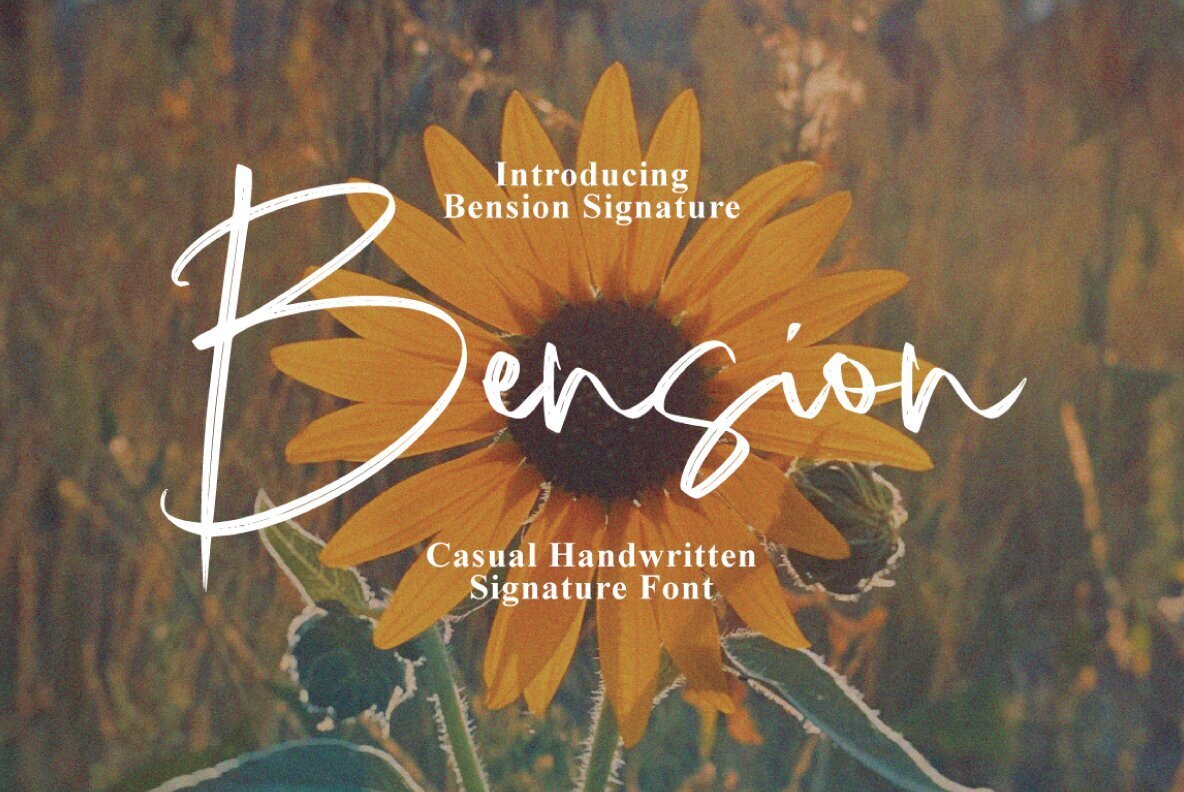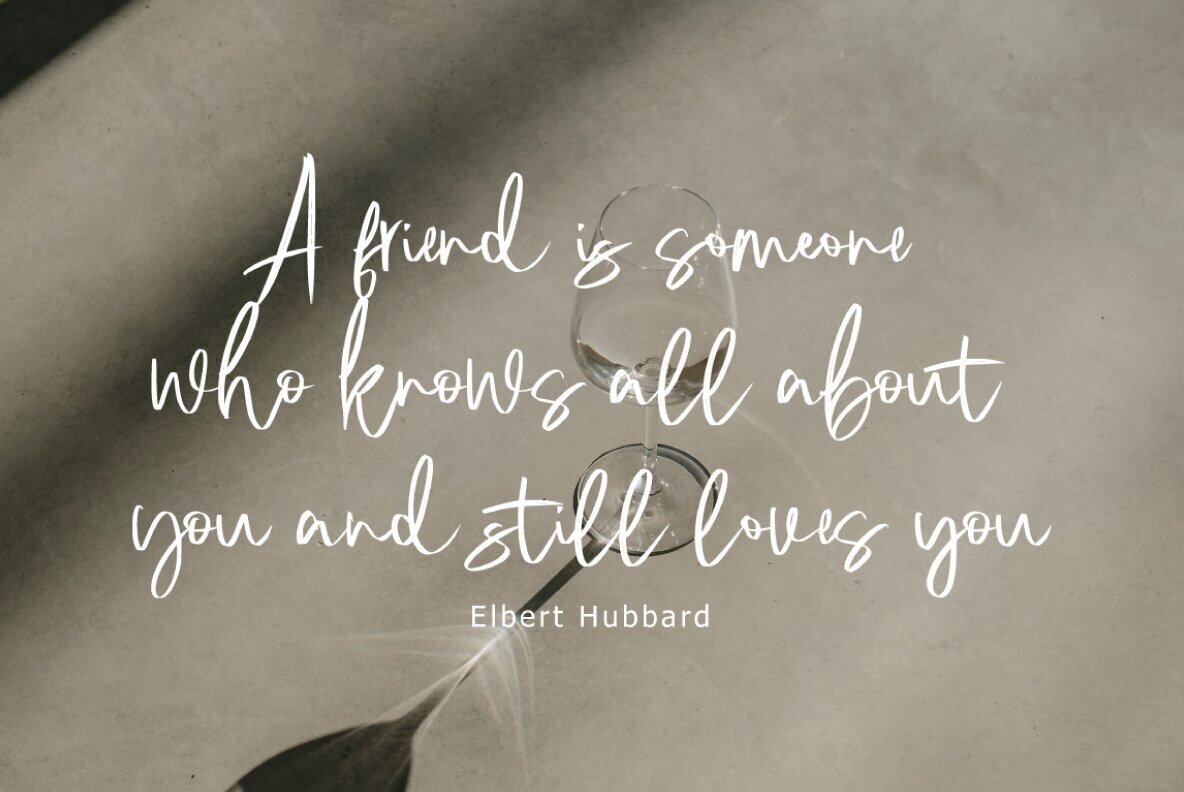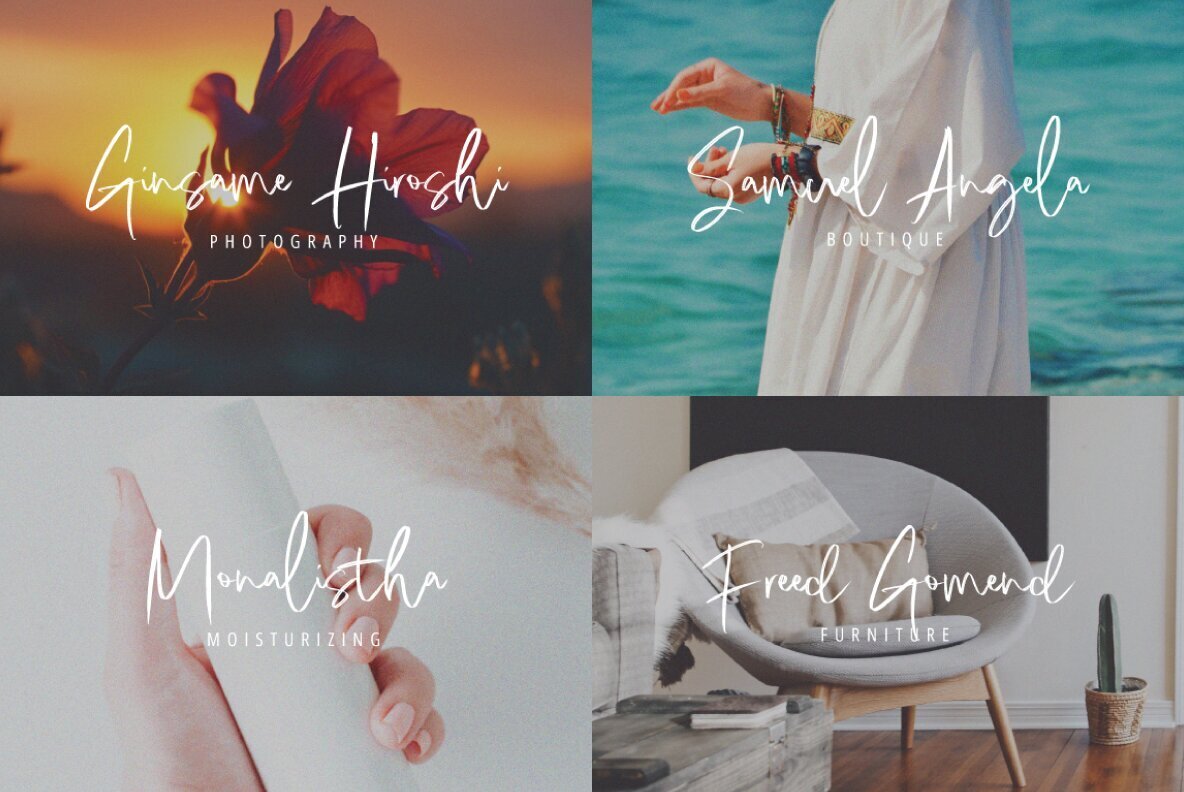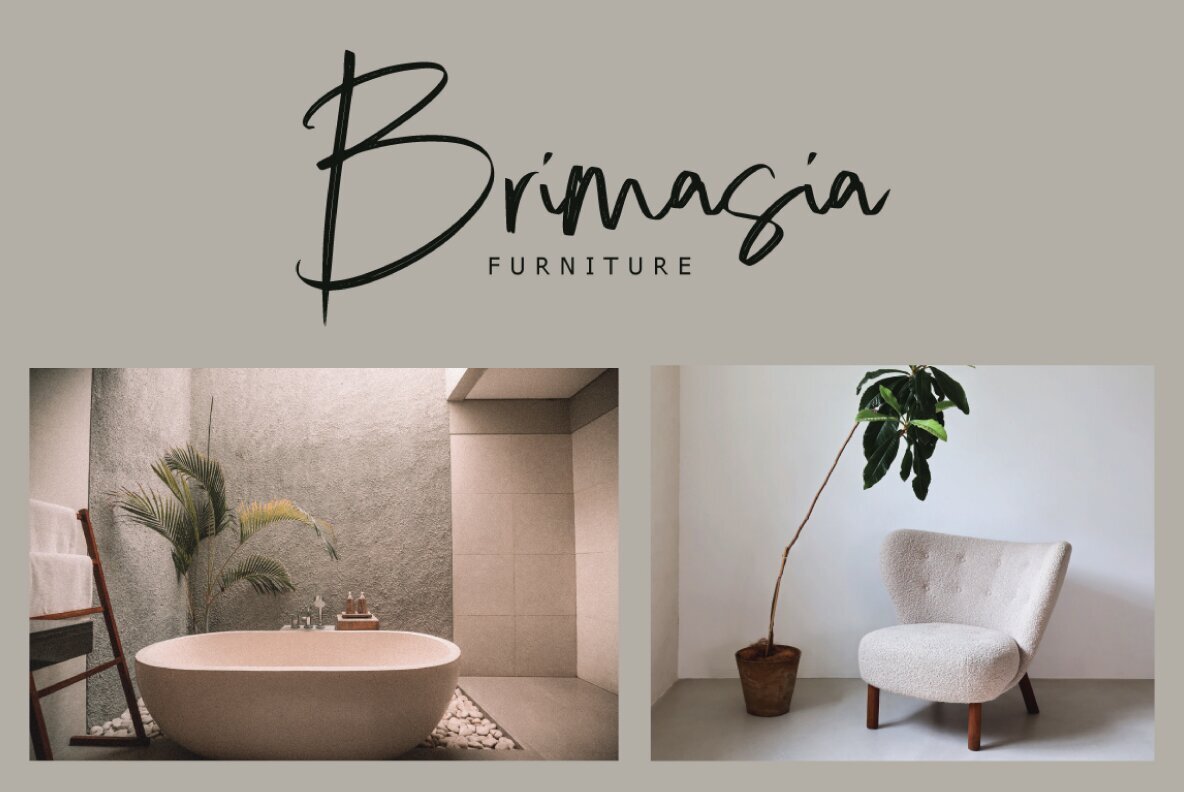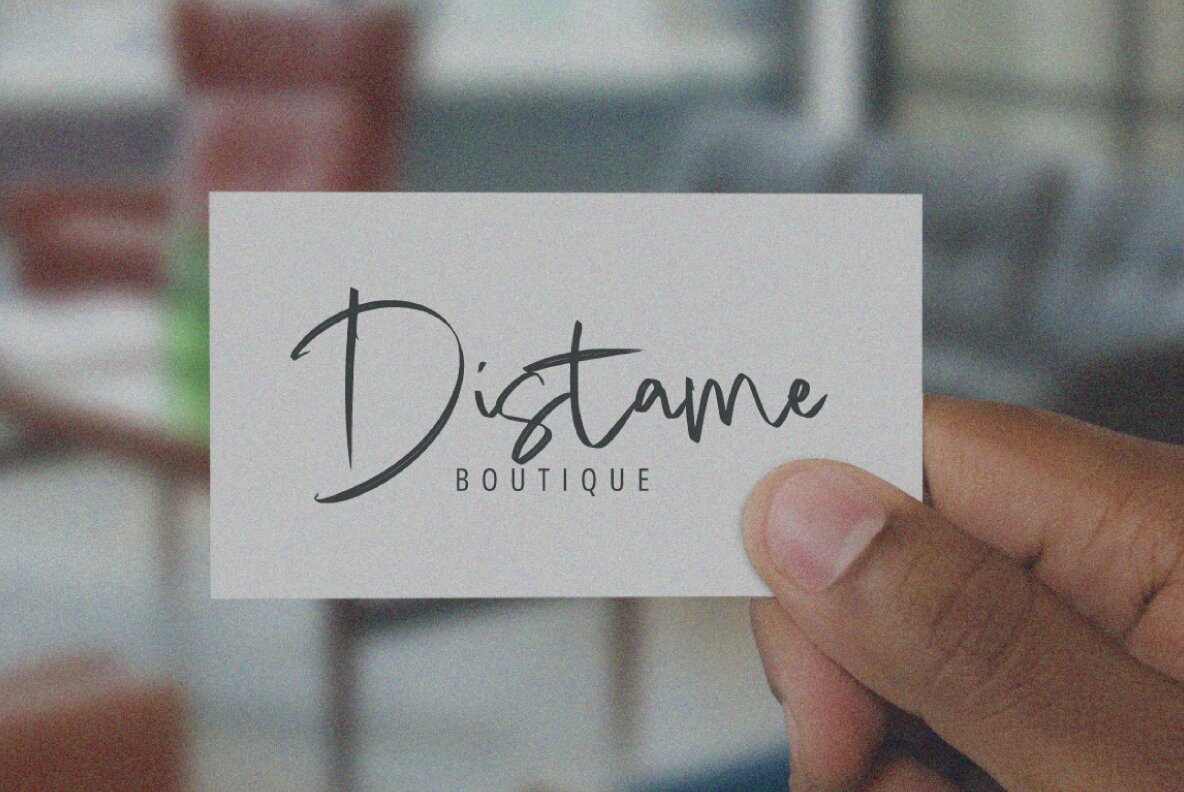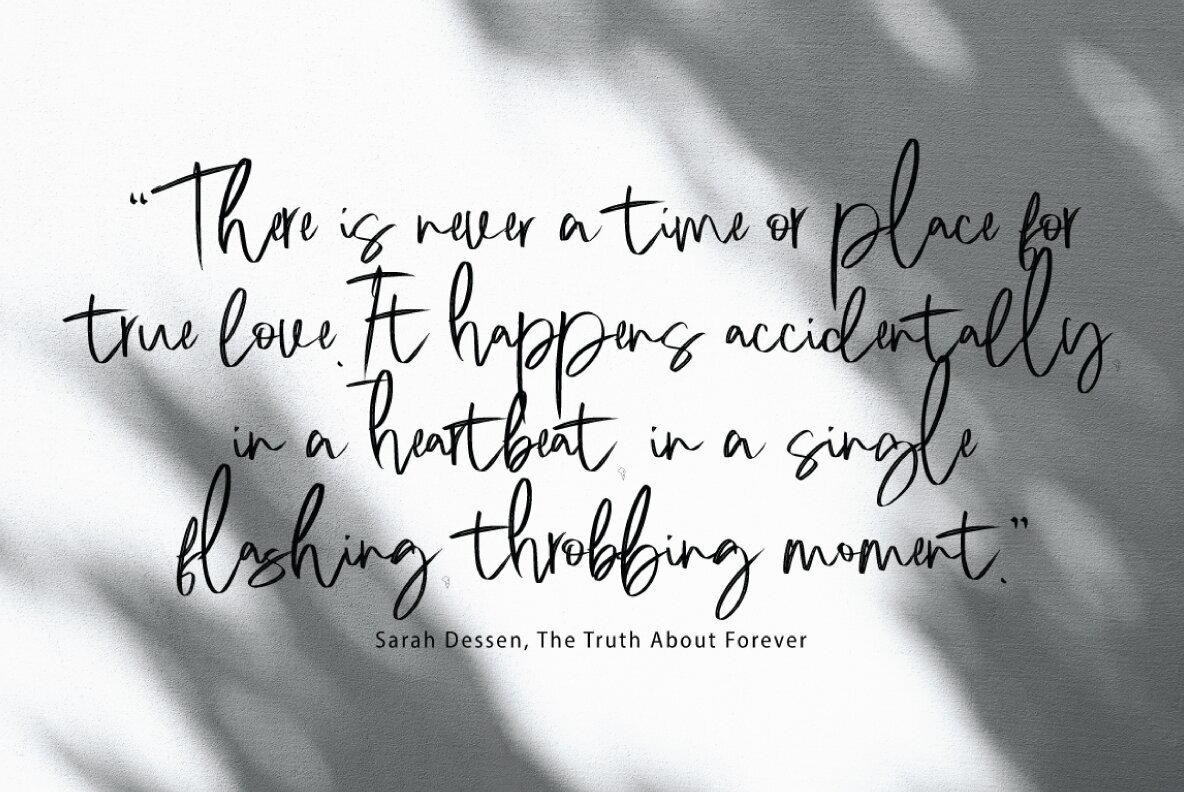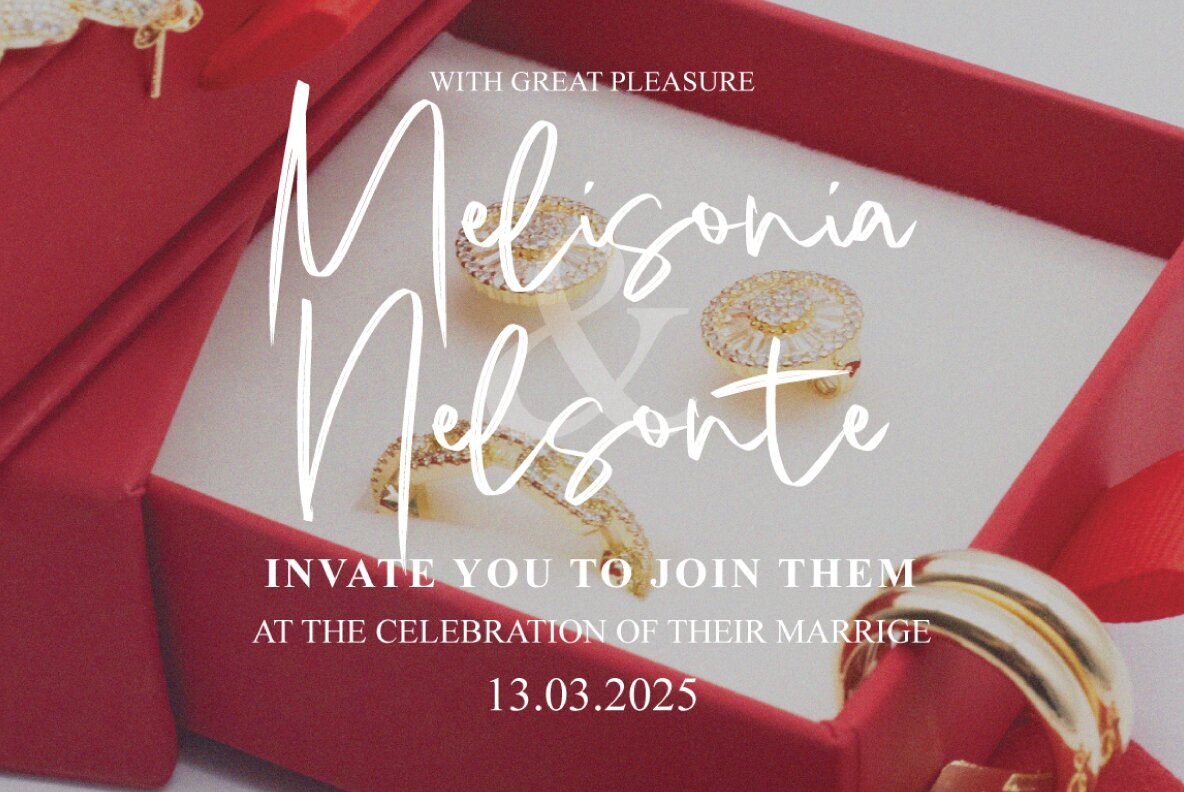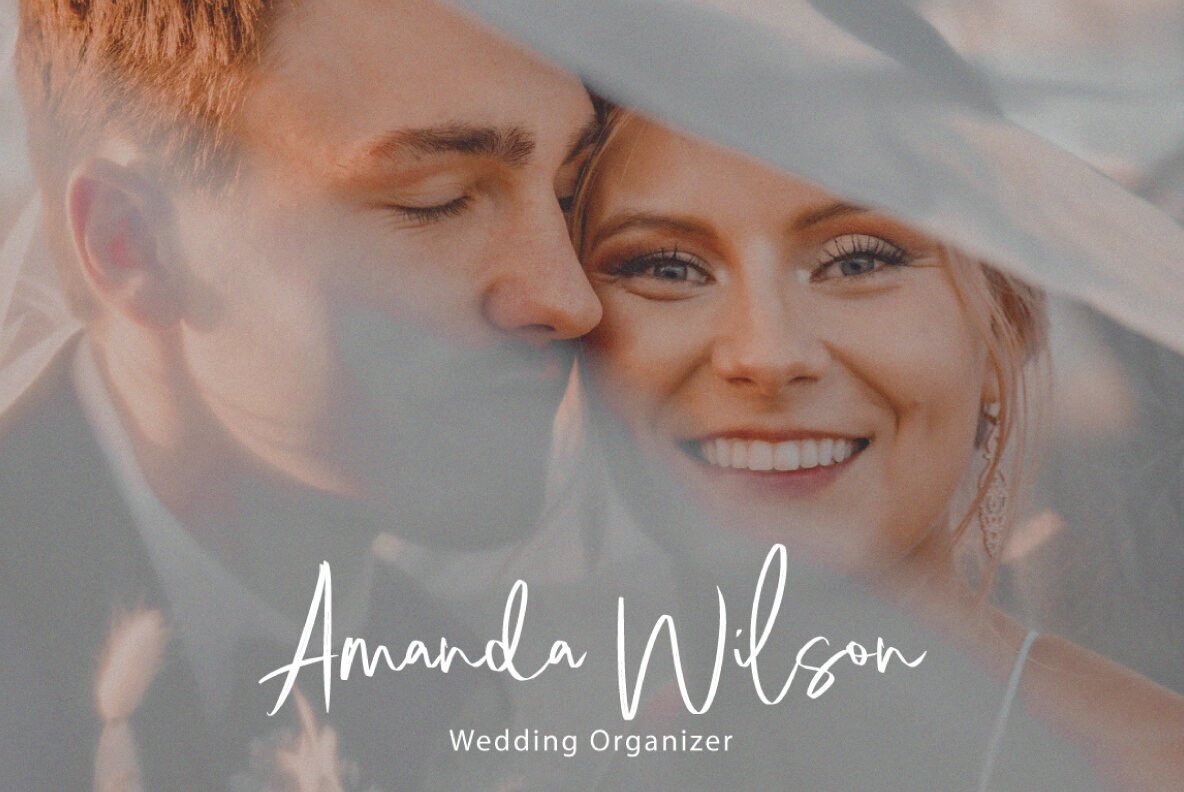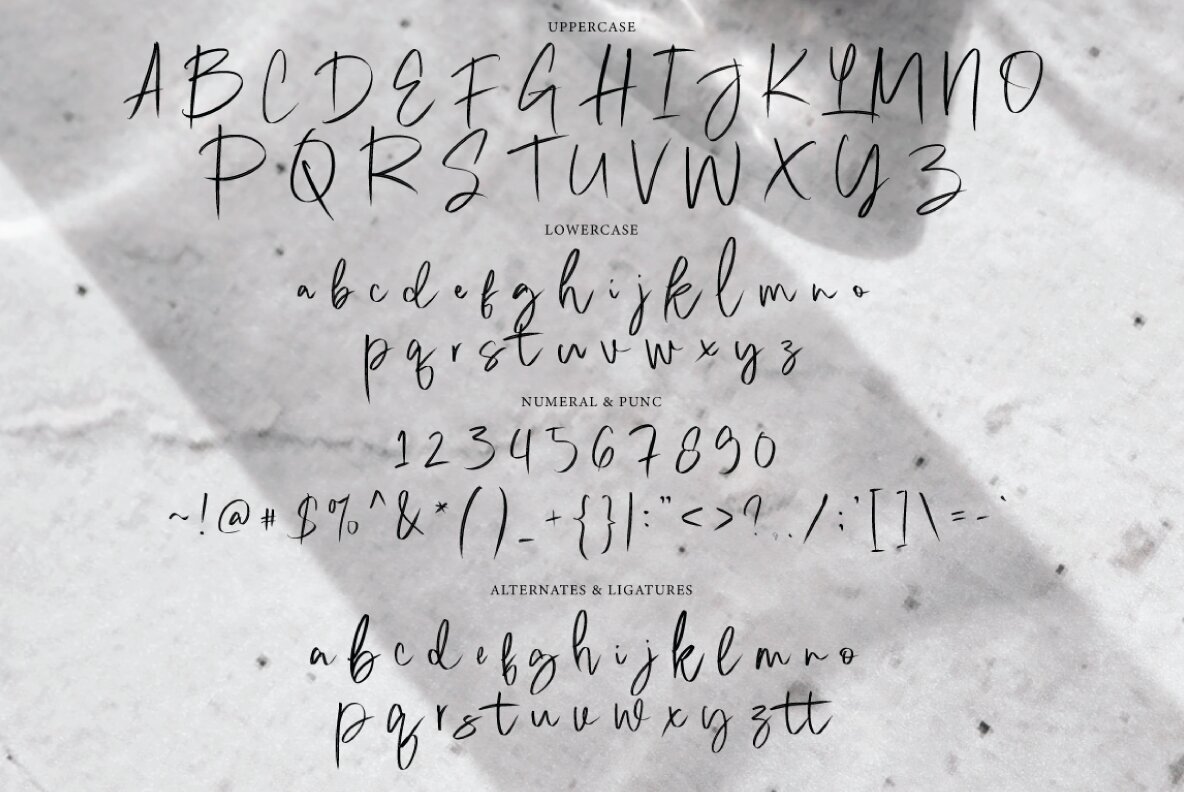
Bension Font
Bension Signature Regular
Discover the exquisite flair of Bension Signature, a remarkable typeface from Executype Studio. Featuring a handmade signature style infused with decorative characters and a dynamic baseline, this font adds charm to any project. Perfect for invitations, greeting cards, branding materials, business cards, quotes, and posters, Bension Signature transforms your designs with over 200 unique glyphs. Bension Signature offers a wealth of OpenType features, including swashes, stylistic sets, alternates, and ligatures. These features are easily accessible with OpenType-supporting programs like Adobe Illustrator, Adobe InDesign, Adobe Photoshop, CorelDraw, and even Microsoft Word. Supported by PUA Unicode, this font ensures all alternate characters are at your fingertips, granting both craftspeople and designers the full scope of creative expression. Even if you're not using OpenType-savvy software, you can explore the elegance of Bension Signature through Font Book on Mac or Character Map on Windows. Elevate your creative projects with this versatile font and craft messages that resonate beautifully.Experience the Elegance of Bension Signature
Rich Features for Creative Flexibility